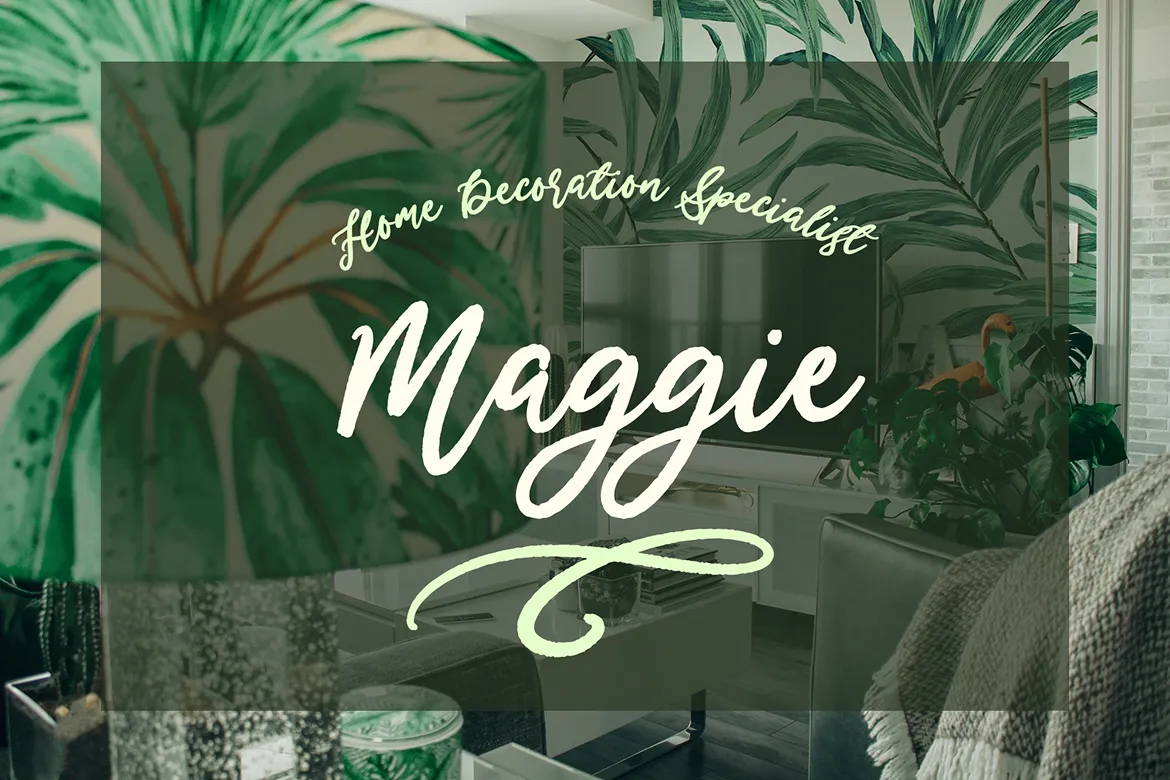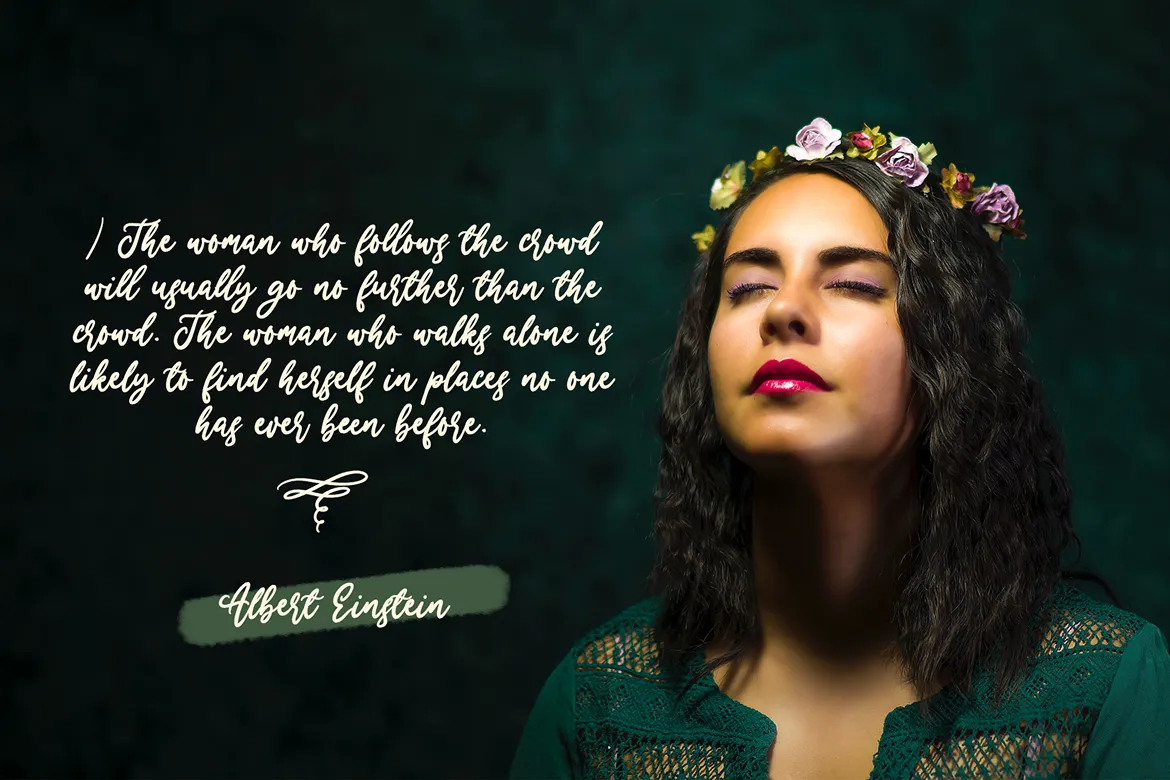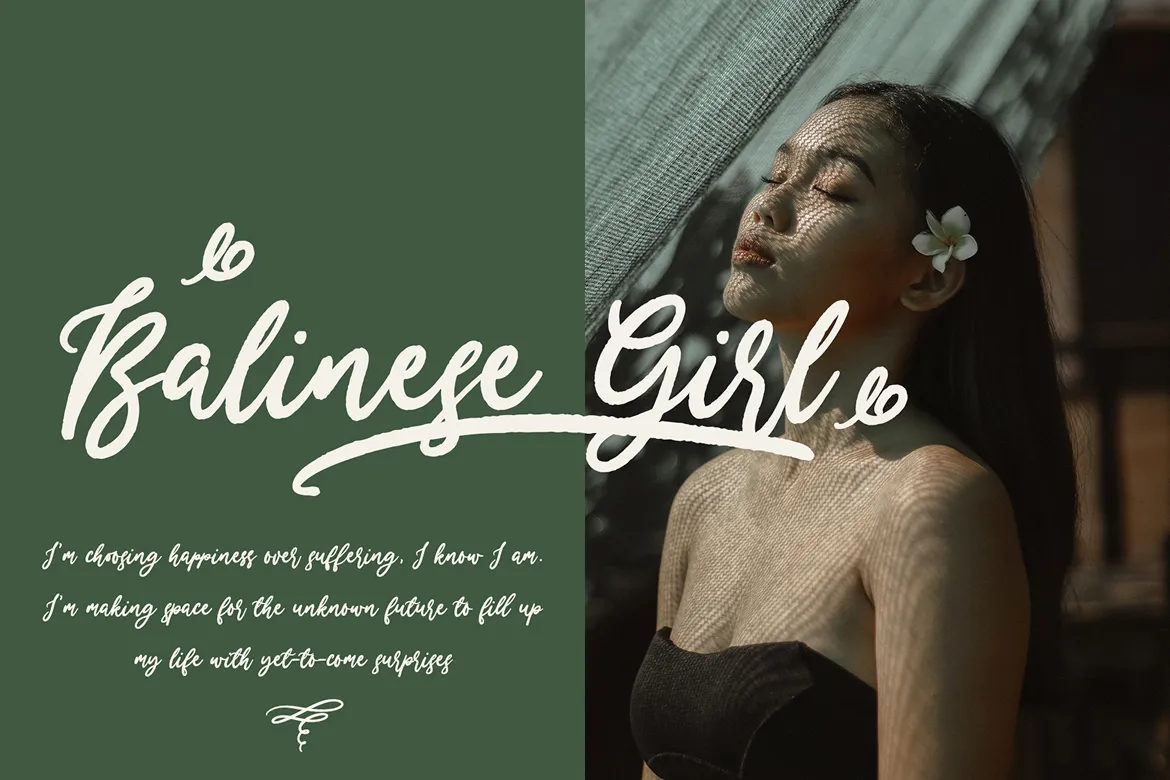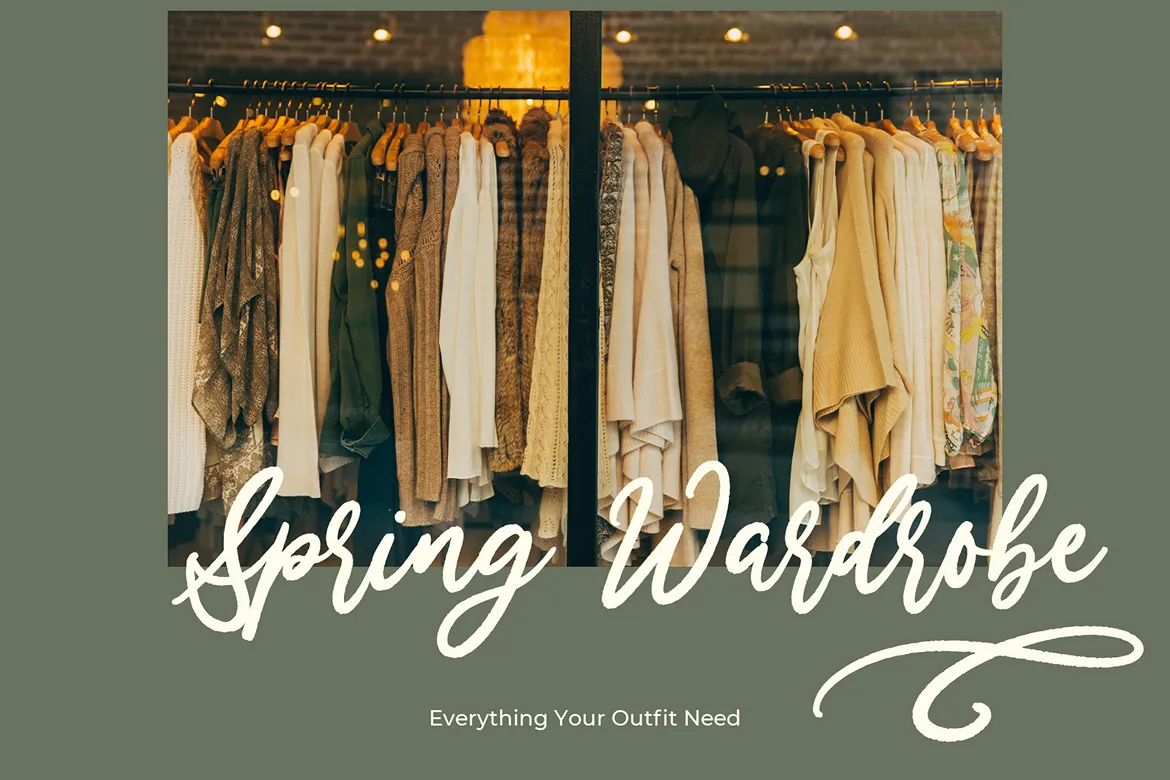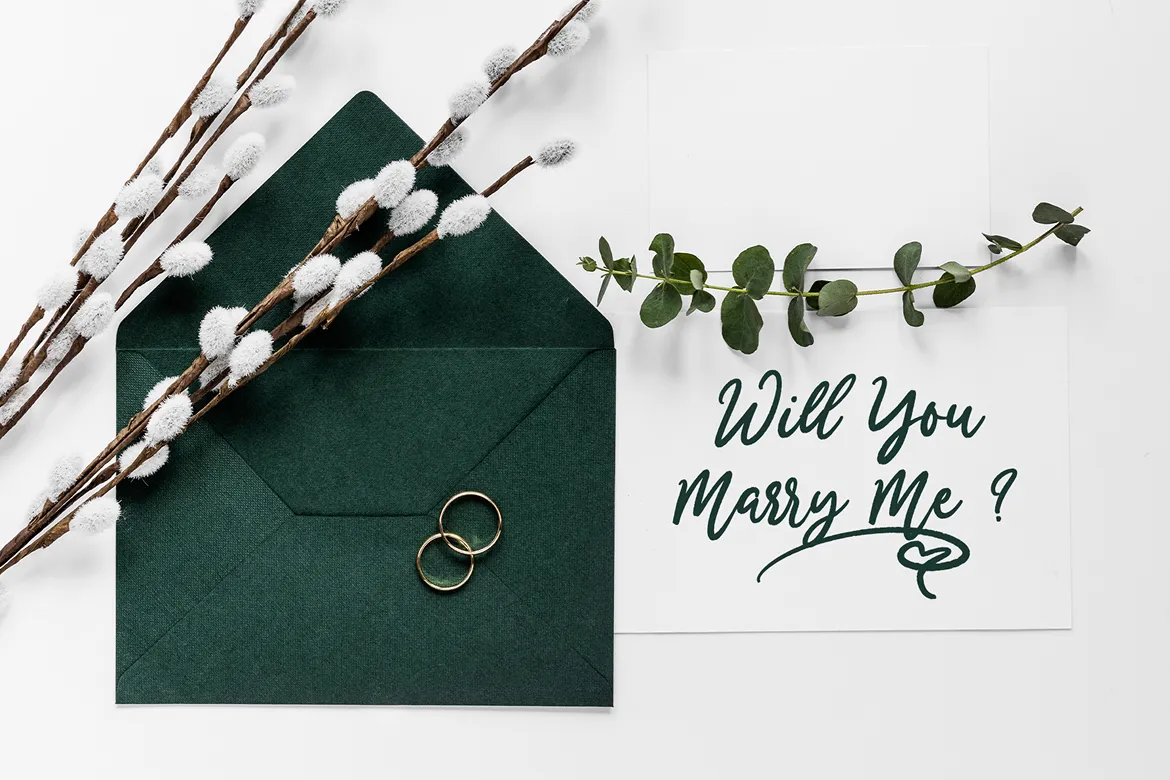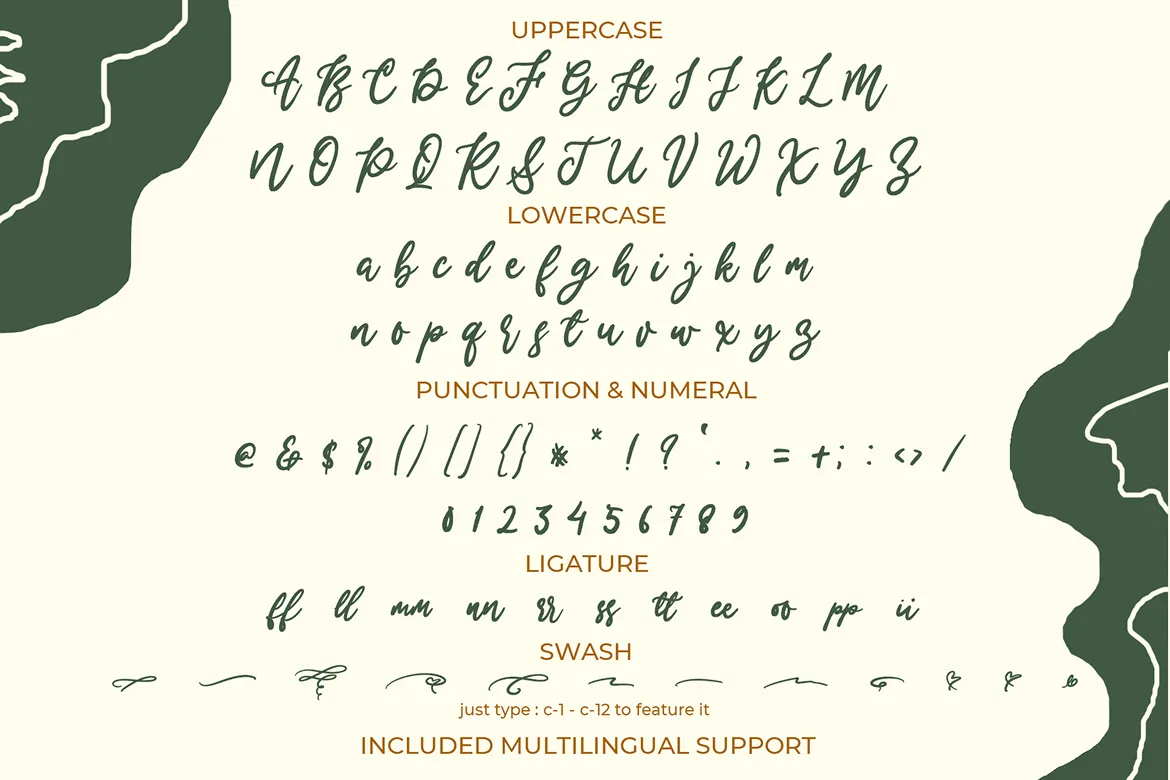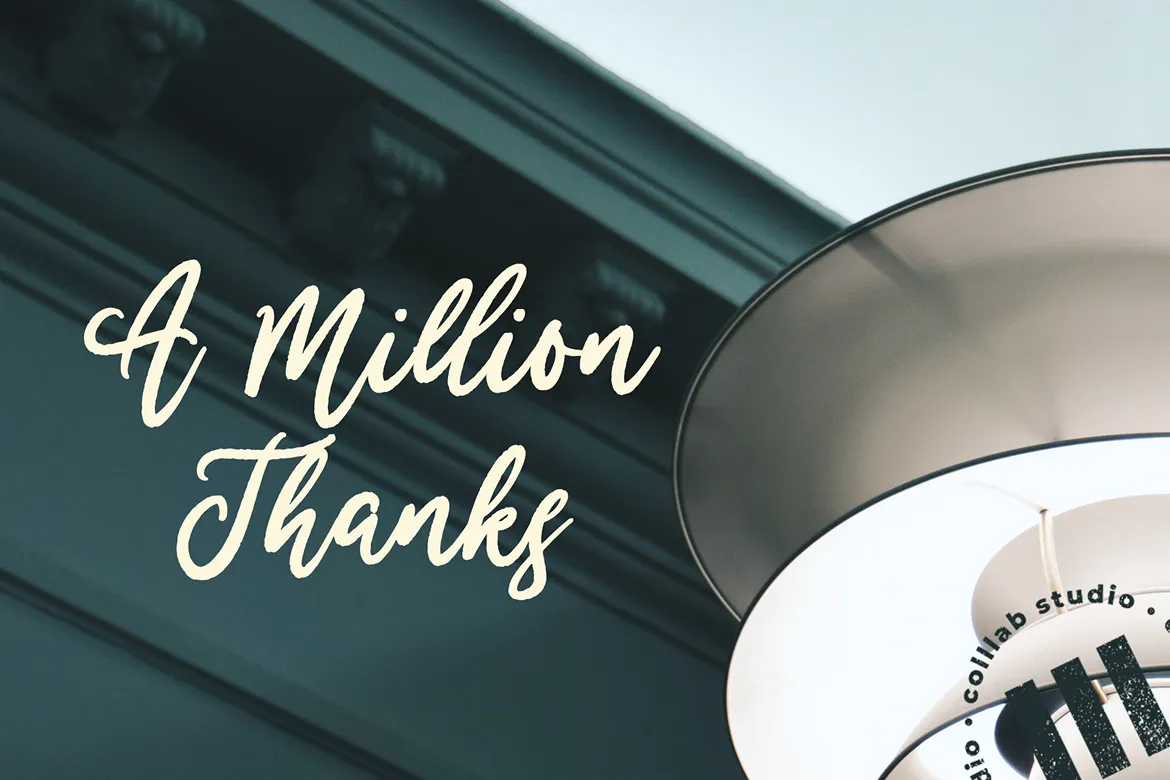
Merry Holly is a modern handwritten script font crafted with flowing calligraphy strokes, decorative characters, and a playful irregular baseline. Its trendy and feminine aesthetic makes it the perfect choice for creative projects, adding a touch of warmth and charm to any design. Whether you’re crafting wedding stationery, stylish branding, product packaging, or social media visuals, Merry Holly’s graceful details ensure a polished and timeless look.
Inspiration Behind the Font
Merry Holly was inspired by the joy and festive spirit of handwritten holiday notes and celebrations. Its curves embody elegance with a cheerful personality, making it versatile for all-year designs.
Key Features
Full uppercase & lowercase characters
Numbers & punctuation
Natural ligatures (ee, ii, ff, and more)
Alternate glyphs & decorative swashes
Multilingual support